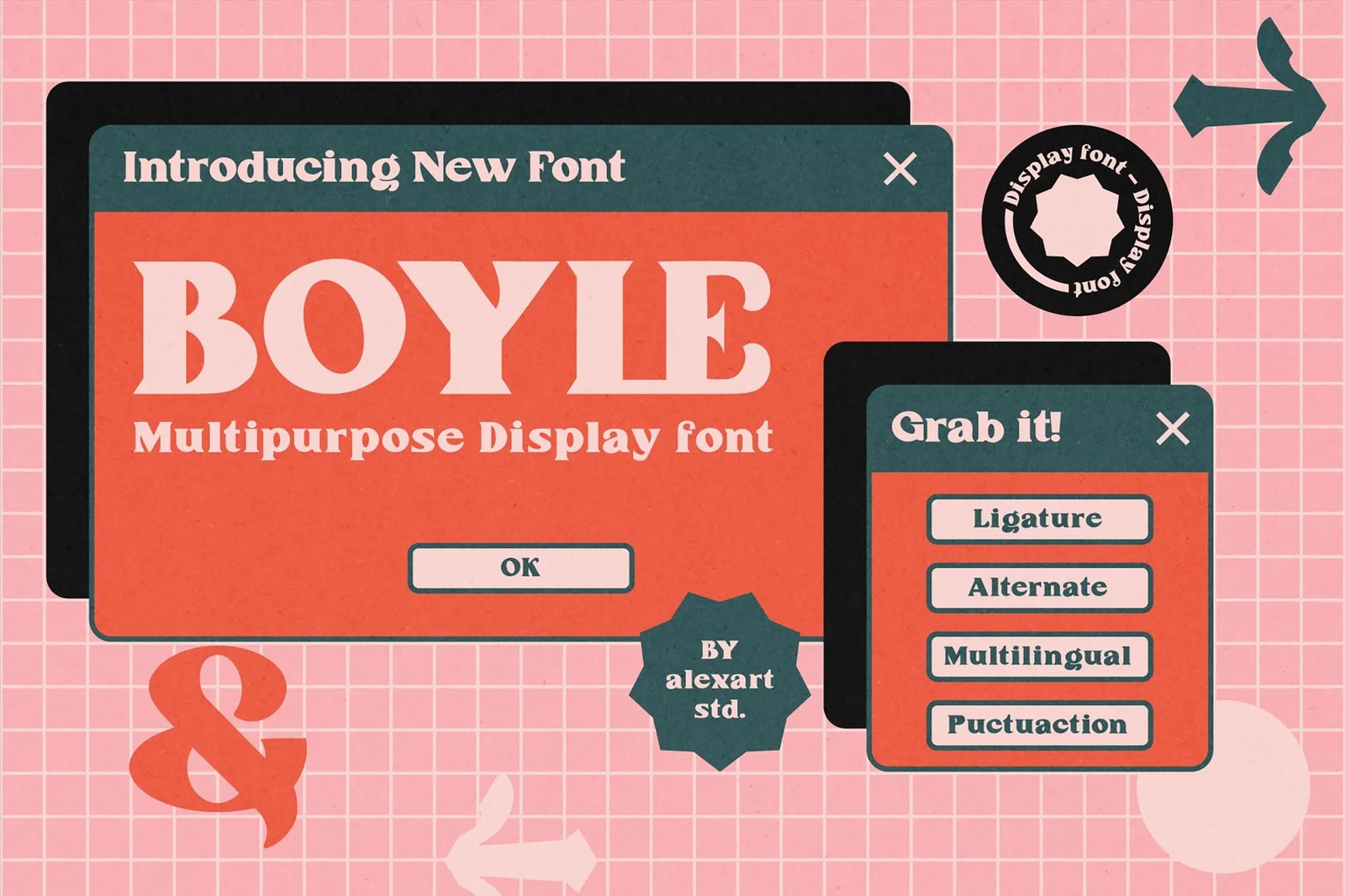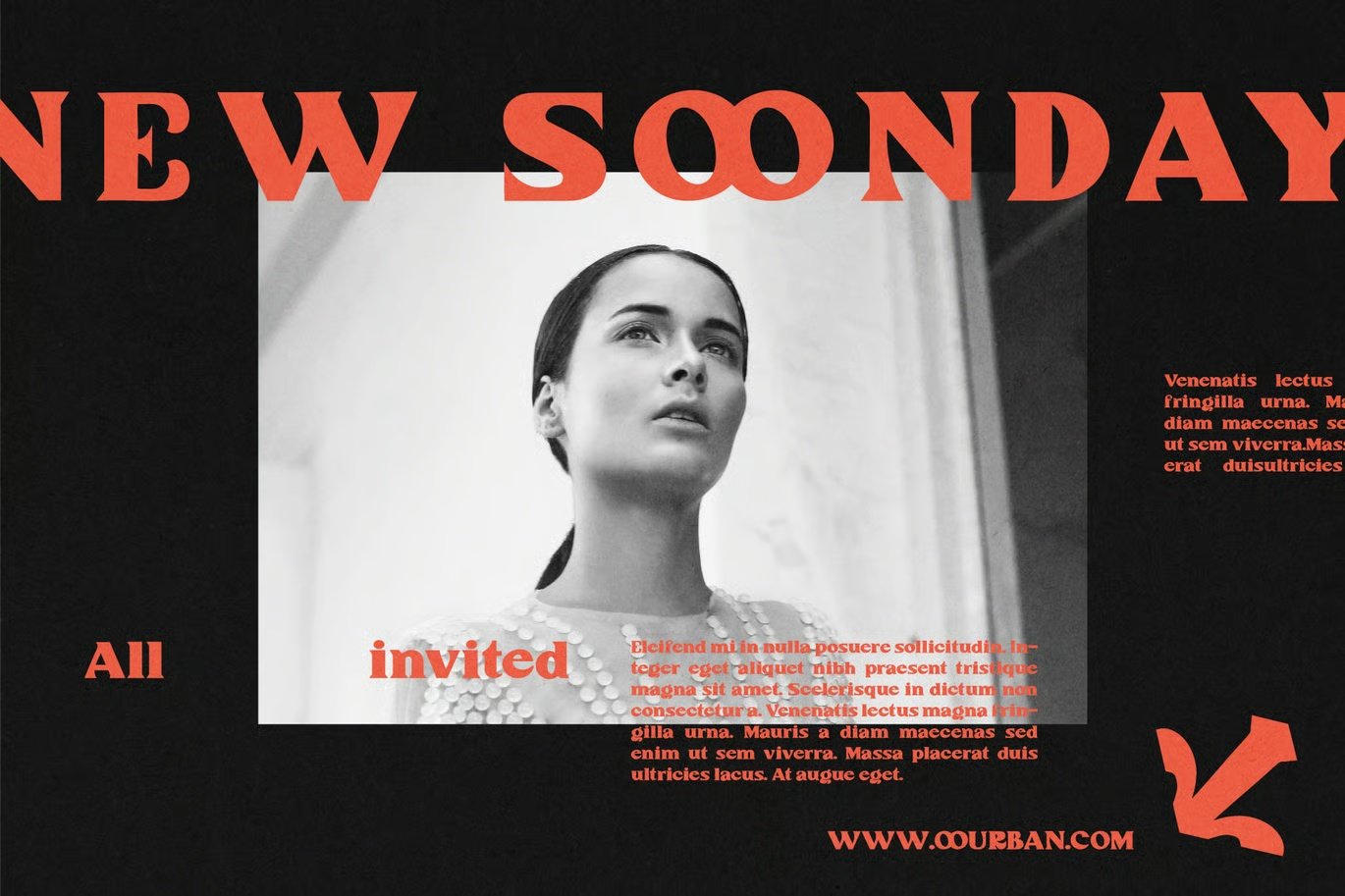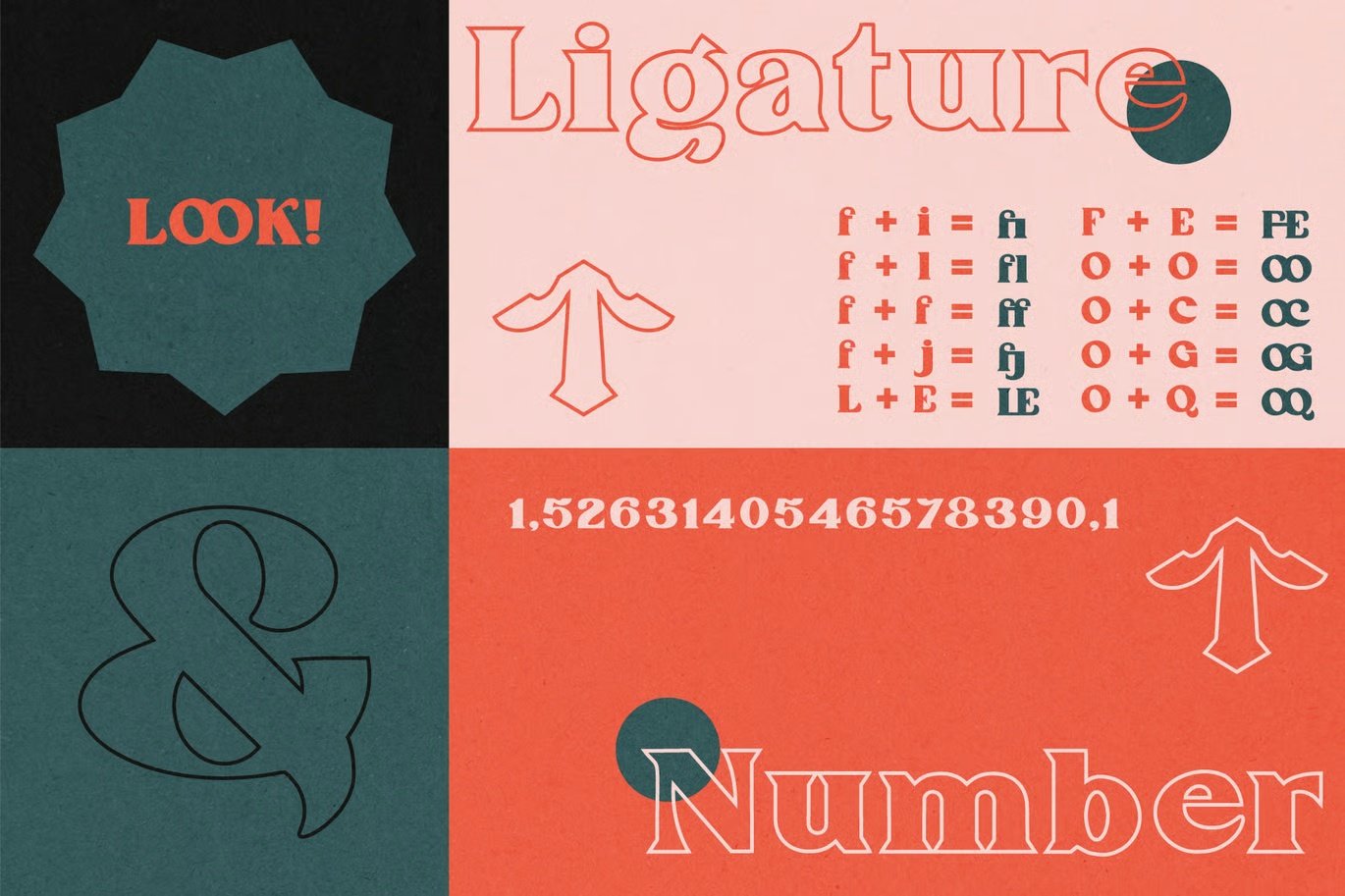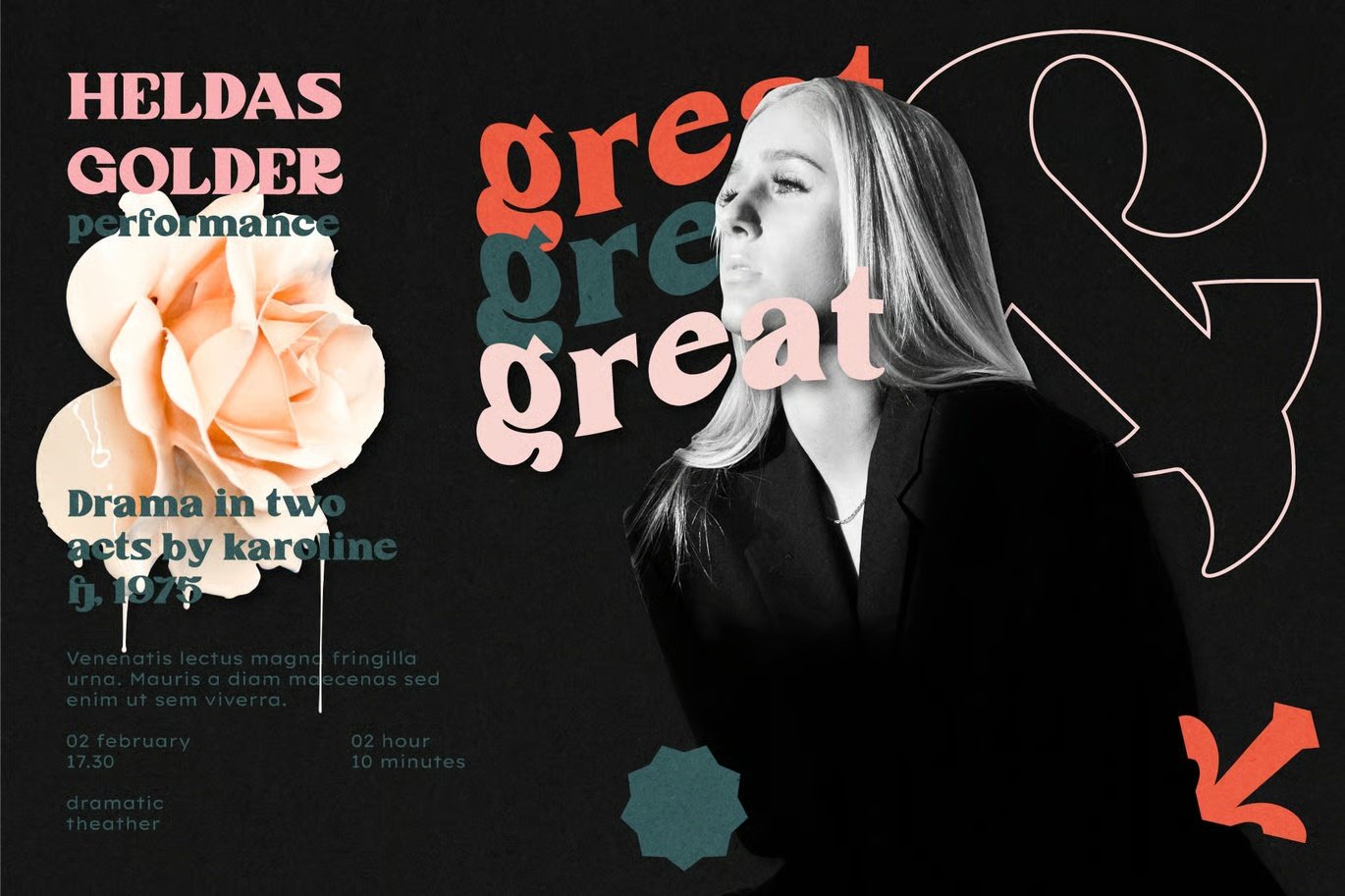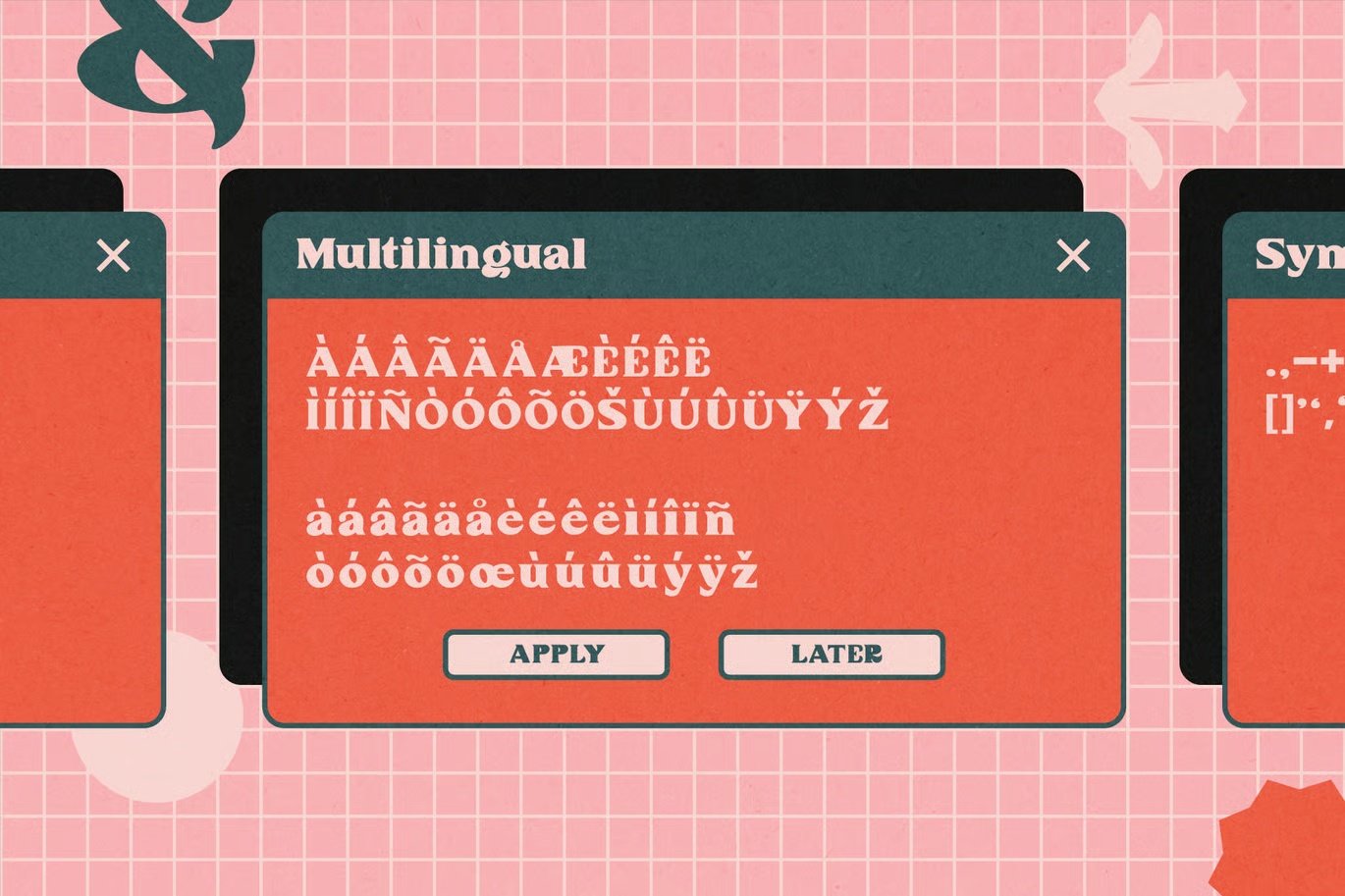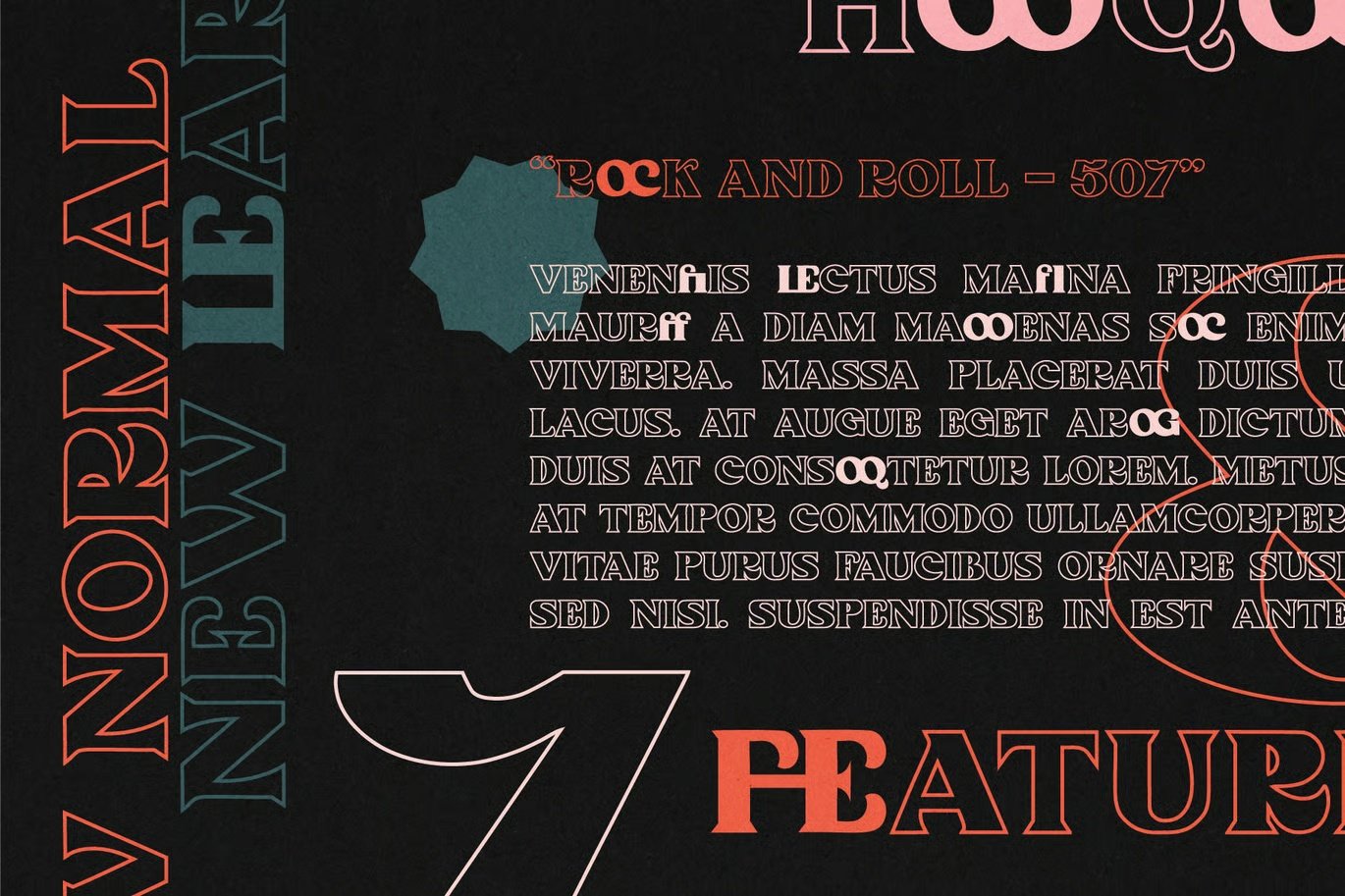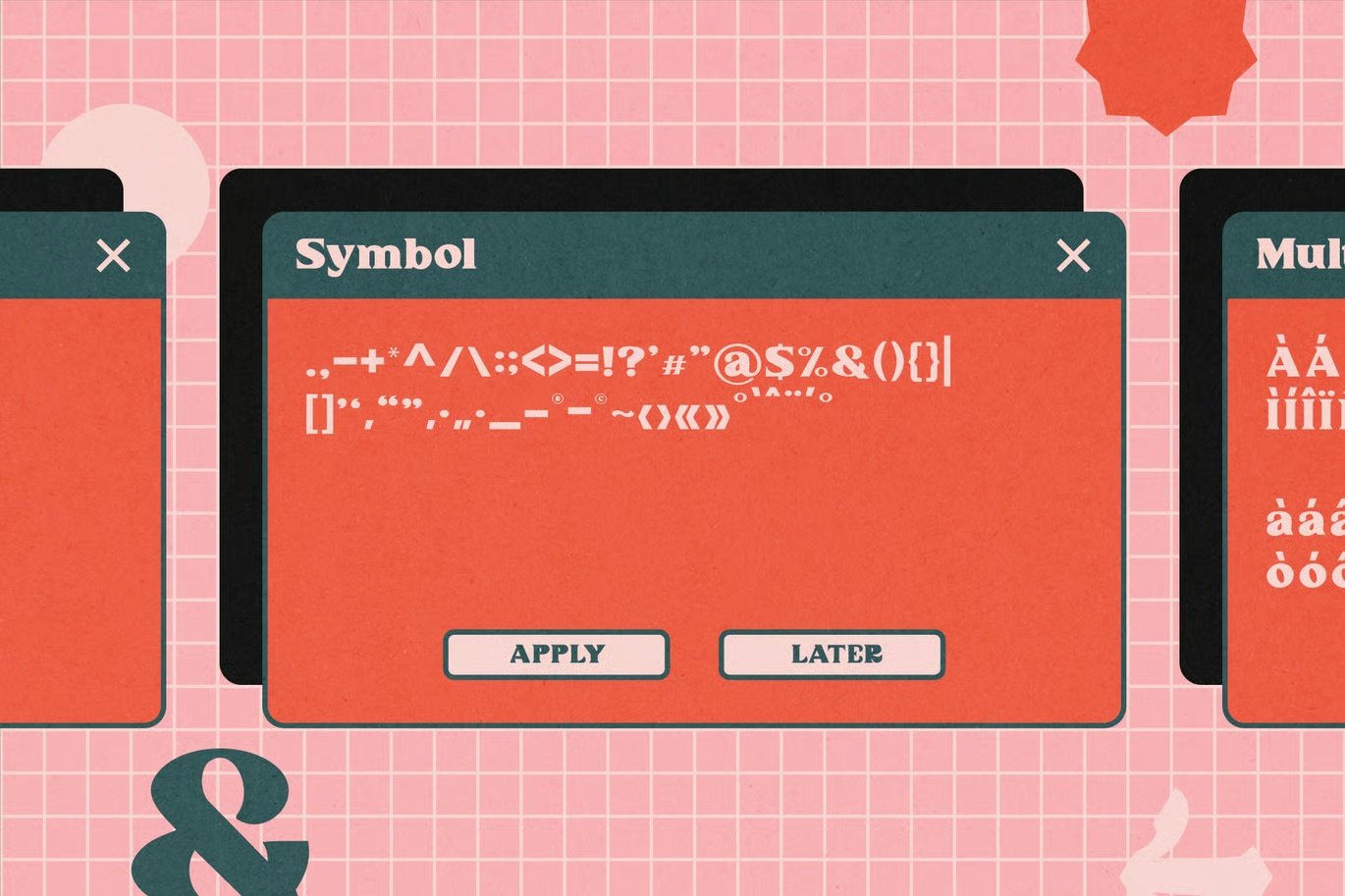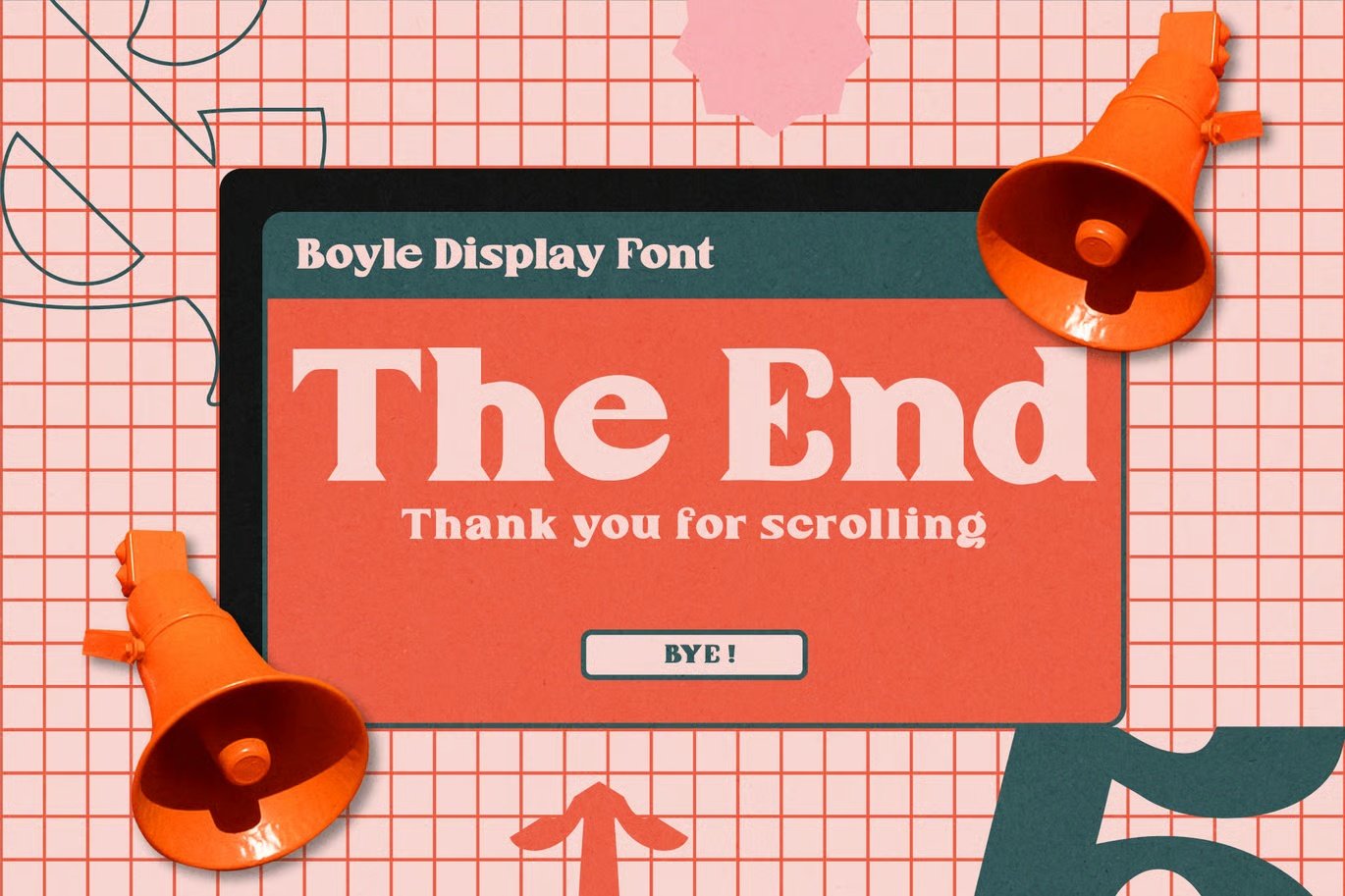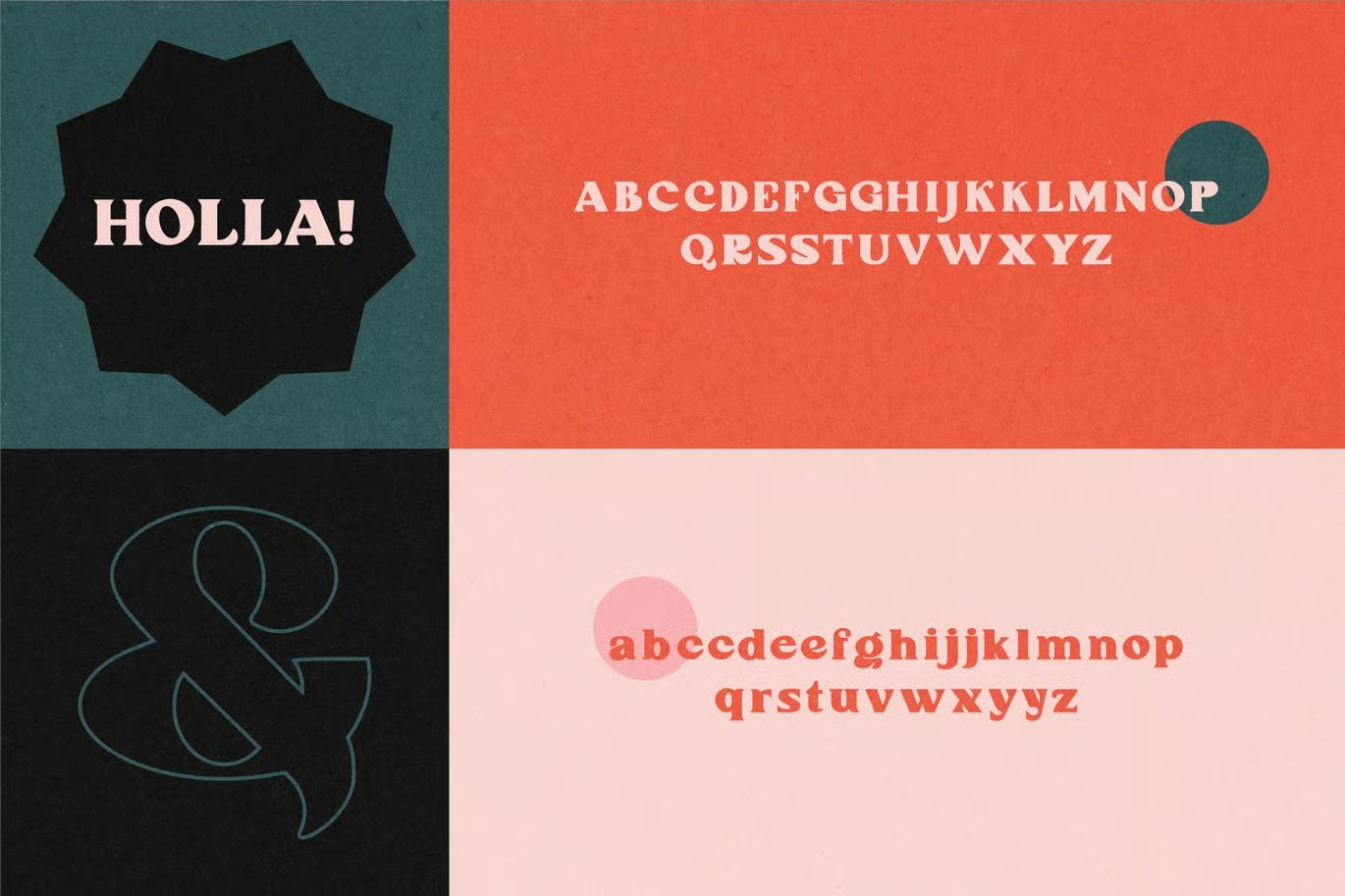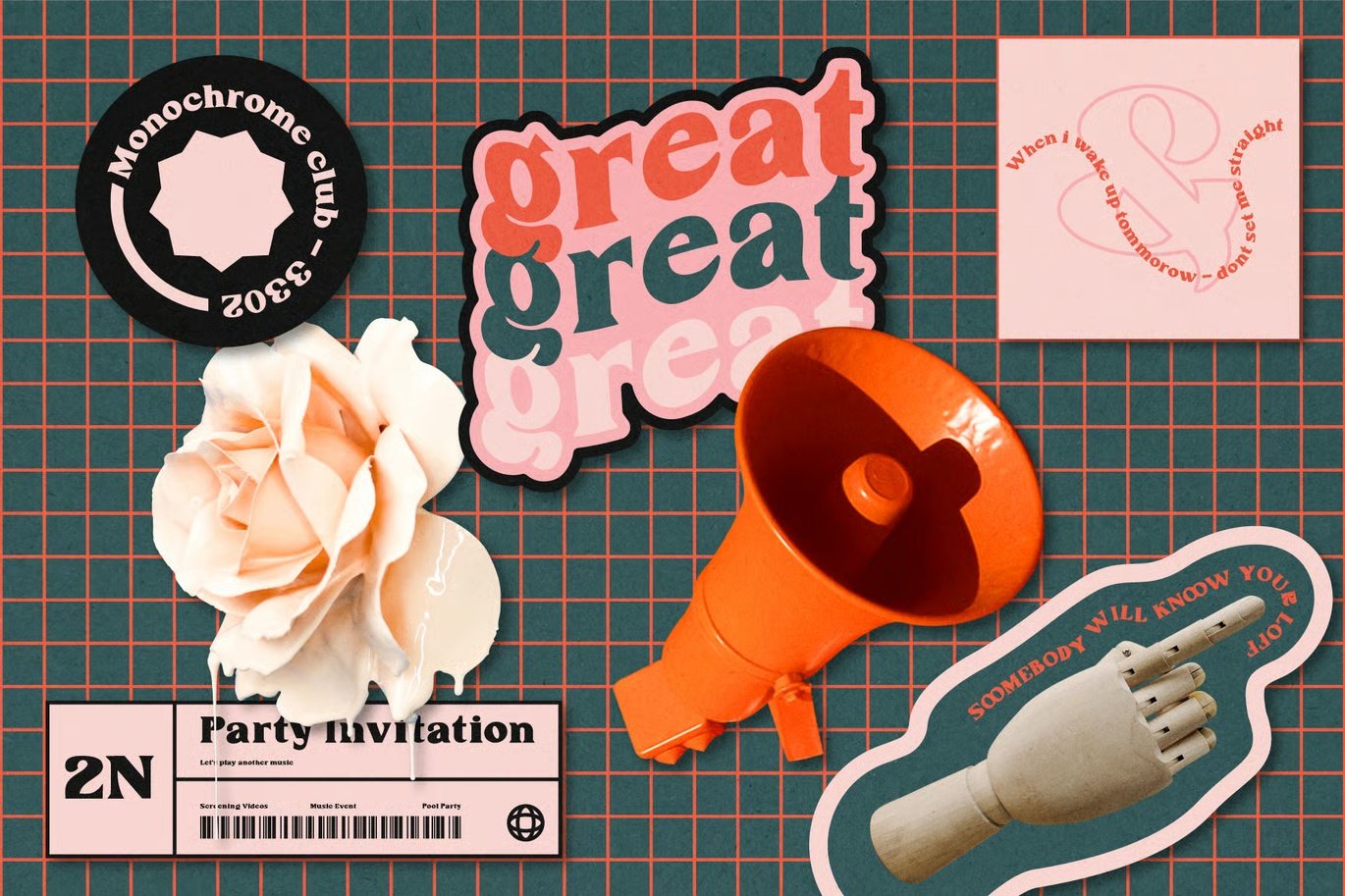
Boyle Display Serif Font This all caps font is suitable for posters, magazines, apparels, movie headlines, packaging and more.
- Ligature
- alternate
- multilingual
- puctuaction